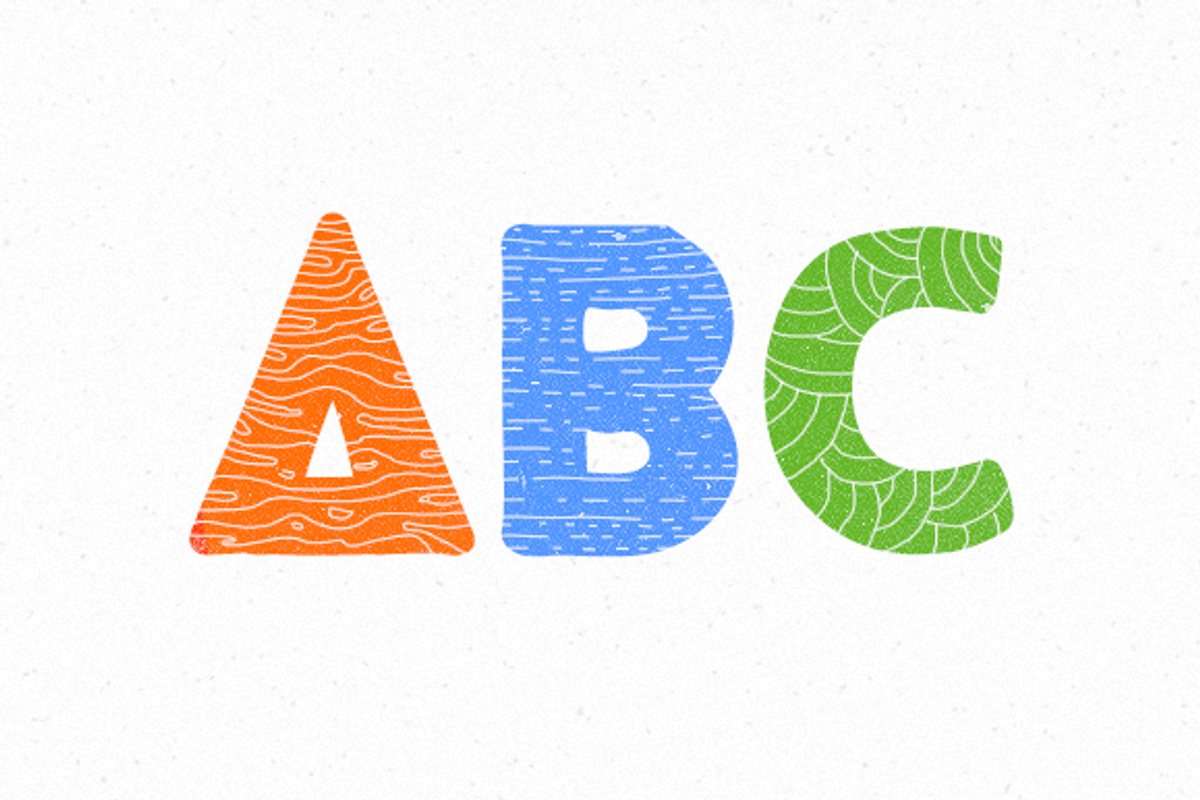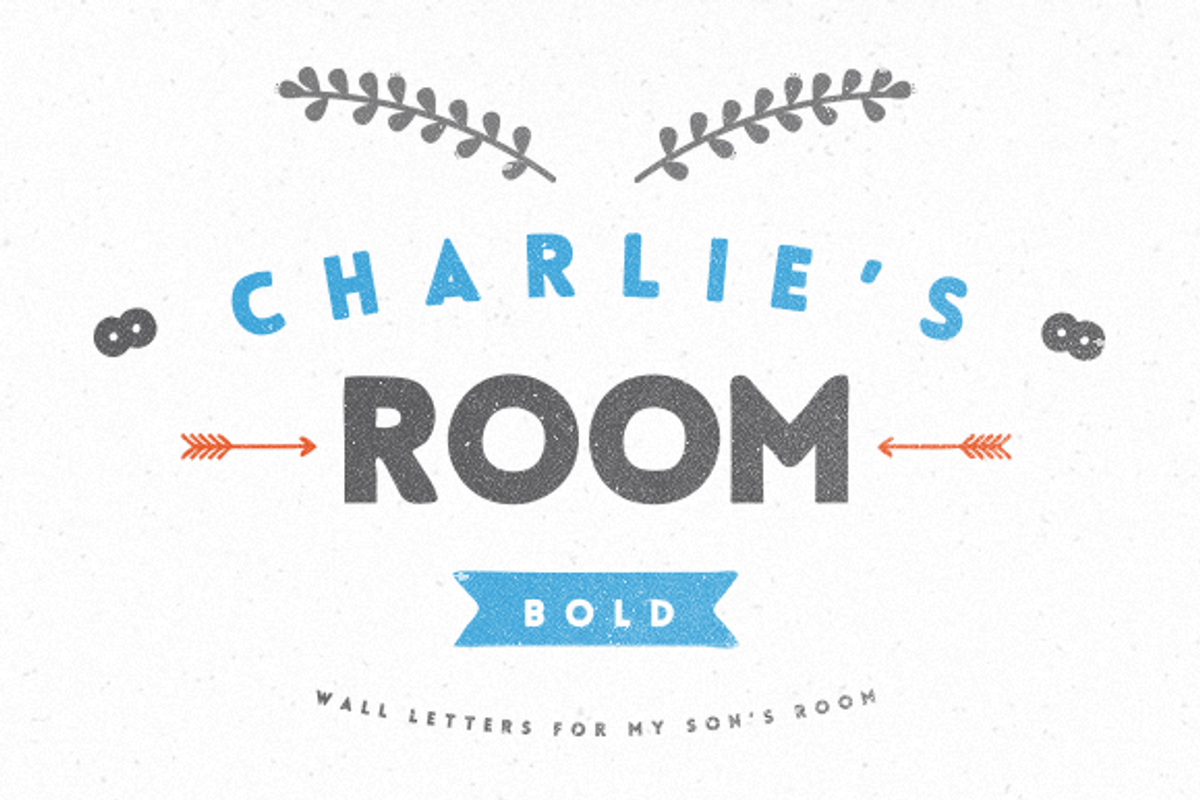
Charlie's Font + Free Logotype
Charlie's Font + Free Logotype by mynameisyanick is a font selected for branding, posters, packaging, typography.
Why Charlie's Font + Free Logotype is worth a look
Charlie's Font + Free Logotype by mynameisyanick fits naturally into Branding, posters, packaging, typography.